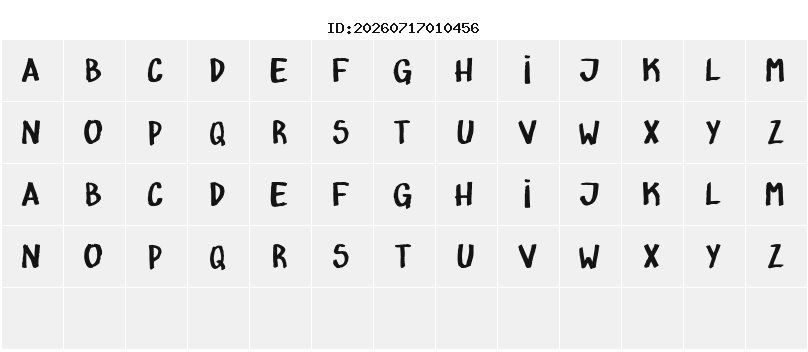
• Font Name: ATÔMICO
• Full Font Name: ATÔMICO
About ATÔMICO.ttf
ATÔMICO.ttf is a modern, elegant sans-serif font designed for ultimate readability and visual harmony. Perfect for branding, headlines, web design, and print materials.